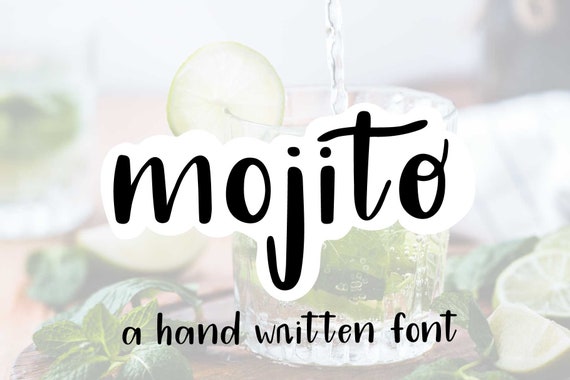
Mojito Handwritten Font
Mojito is a fun handwritten font. Its casual style makes it perfect for logos, branding, greeting cards, prints, social media graphics, Cricut and Silhouette projects, t-shirts, mugs & more. It has a variety of unique, coded features to create fun, handmade projects